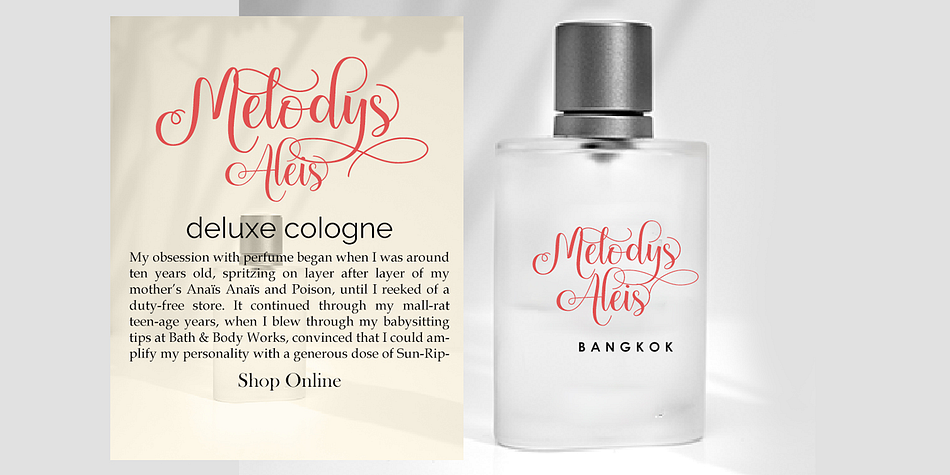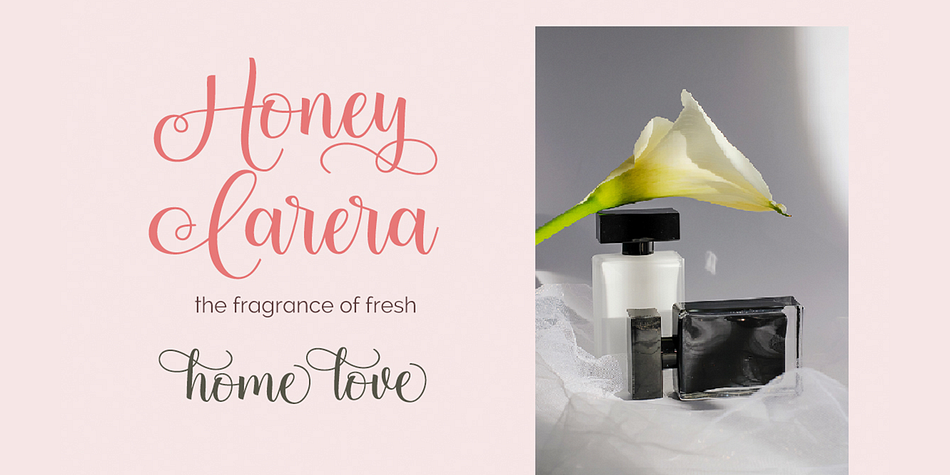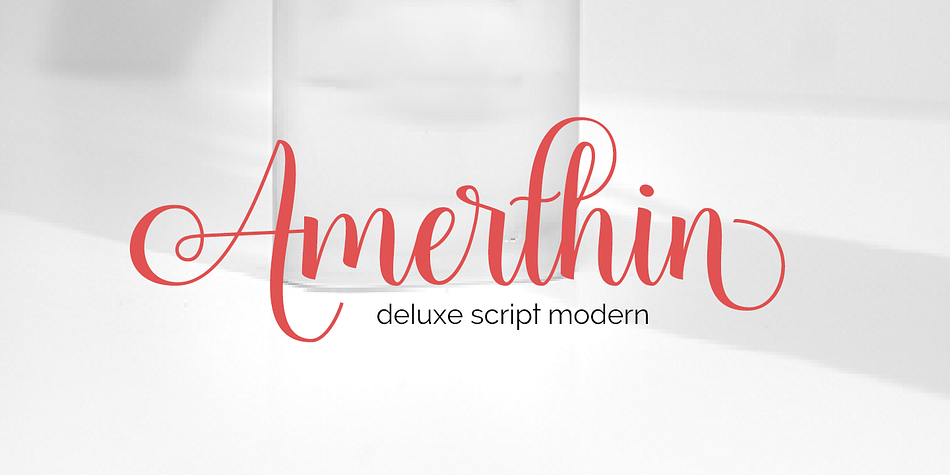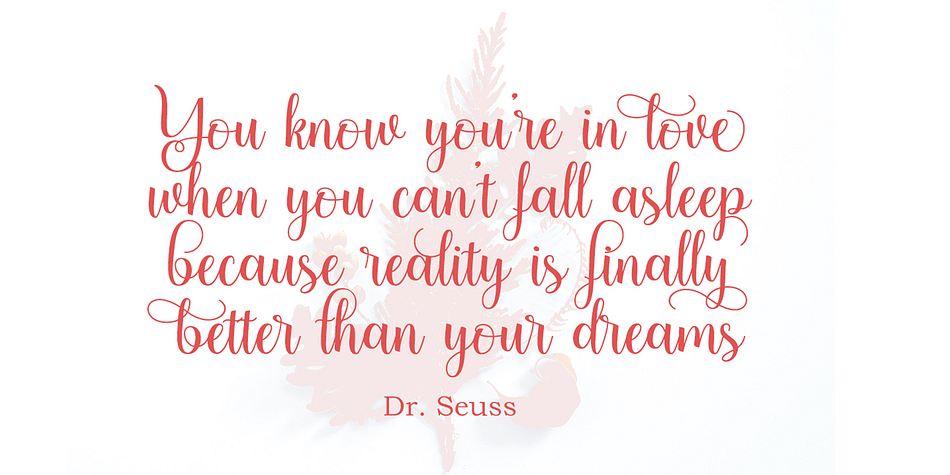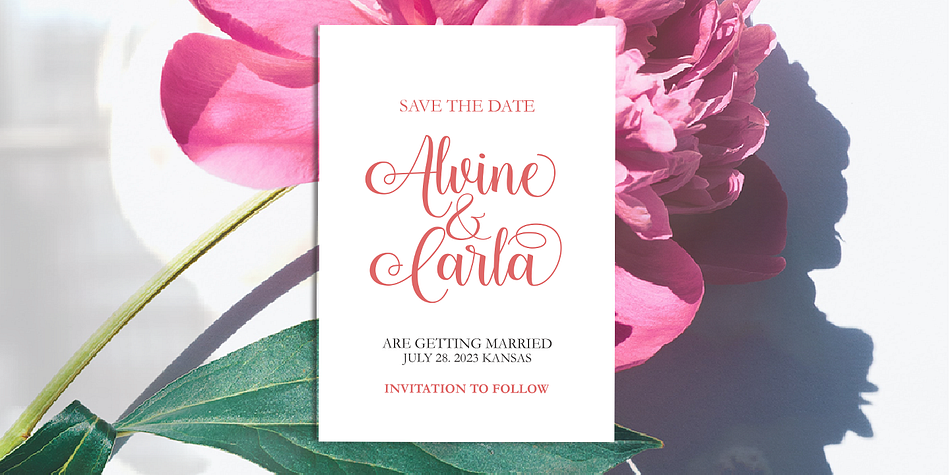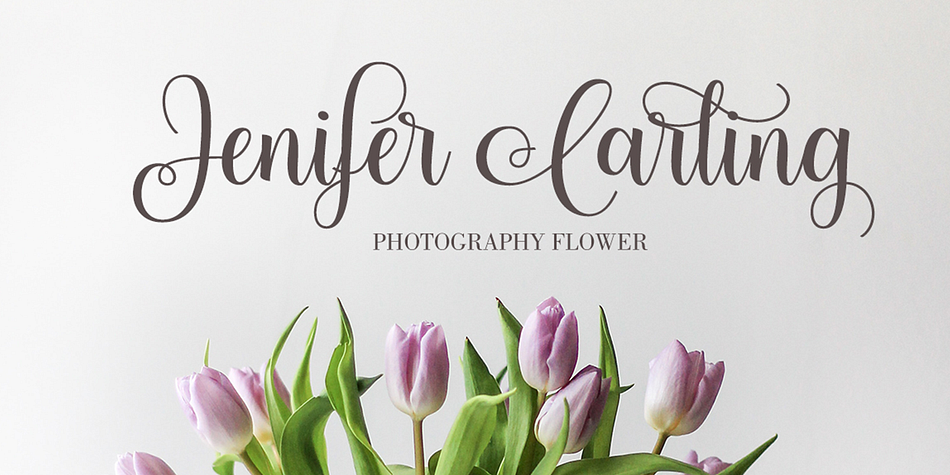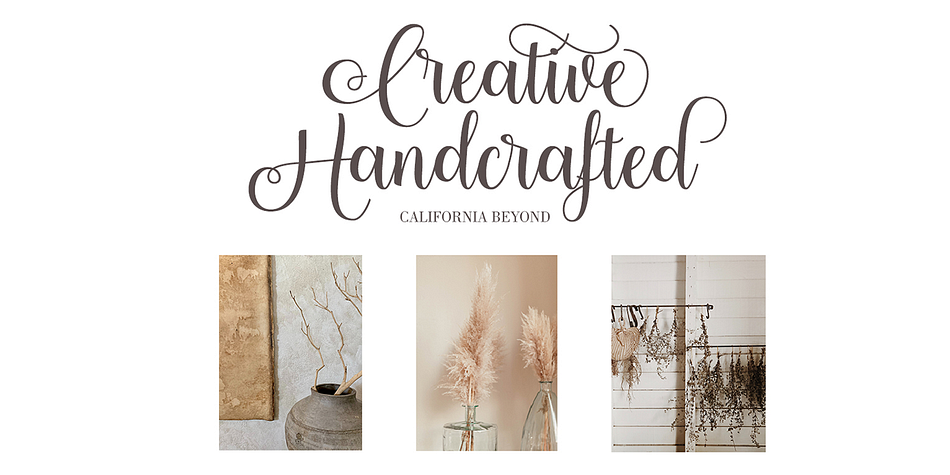
Amerthin
Amerthin is a modern calligraphy font family published by Gatype.
Amerthin is a classy, handwritten font with a distinctive curve, within which there are some interesting features that are perfect for stylish, feminine projects.
Amerthin features initial and ending engraved in upper and lower case, exquisite ligatures and this font is highly applicable when you use it for your wedding design projects, fashion, greetings, invitations, social media and more.